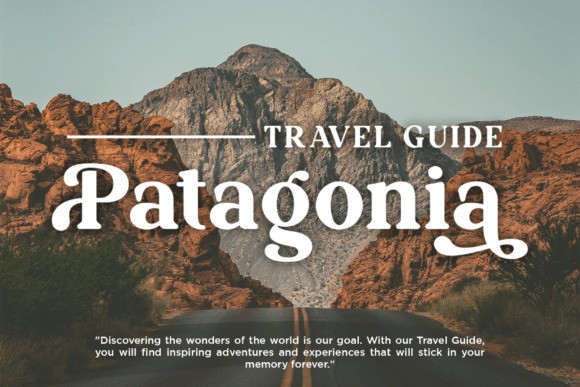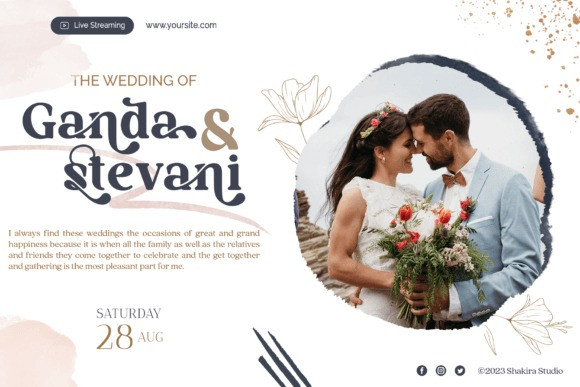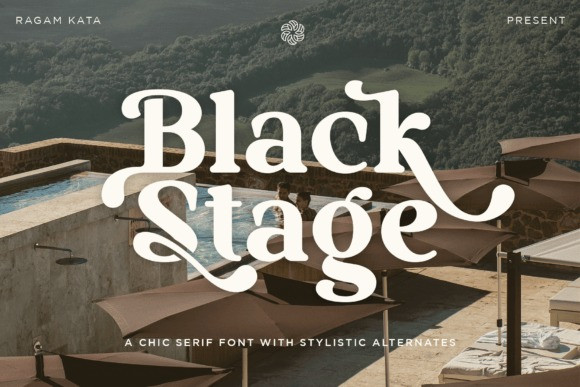
Black Stage Font
Black Stage Font is a charming and eye-catching retro serif font. With a combination of an elegant serif style and a classic vintage touch, this font conveys a feel reminiscent of a bygone era but retains a timeless elegance.
With the stylistic alternates feature, Black Stage provides flexibility in designing a unique text appearance. You can easily change the appearance of the letters by selecting the style alternatives provided. This allows you to bring variety and dynamics to your designs.
Black Stage is suitable for a variety of design purposes, whether it’s for titles, posters, banners, invitation cards, branding designs, and more. Whatever you create with this font, the vintage feel and elegant style will still be present, adding a special touch to your work.